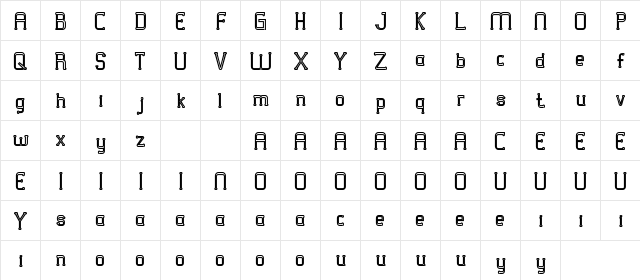
VICTORISA DEMO Inline Regular
Design Context for VICTORISA DEMO Inline Typeface
VICTORISA DEMO Inline is built around its visual character rather than neutral utility — its distinctive forms are designed to make an impression at display sizes.
Font Pairing: Pair with a clean neutral sans-serif for body copy to let VICTORISA DEMO Inline's character lead without overwhelming the composition.
Pro Tip: Use VICTORISA DEMO Inline exclusively at display sizes — it was designed to be seen, not read at length. Let a neutral companion handle body copy.